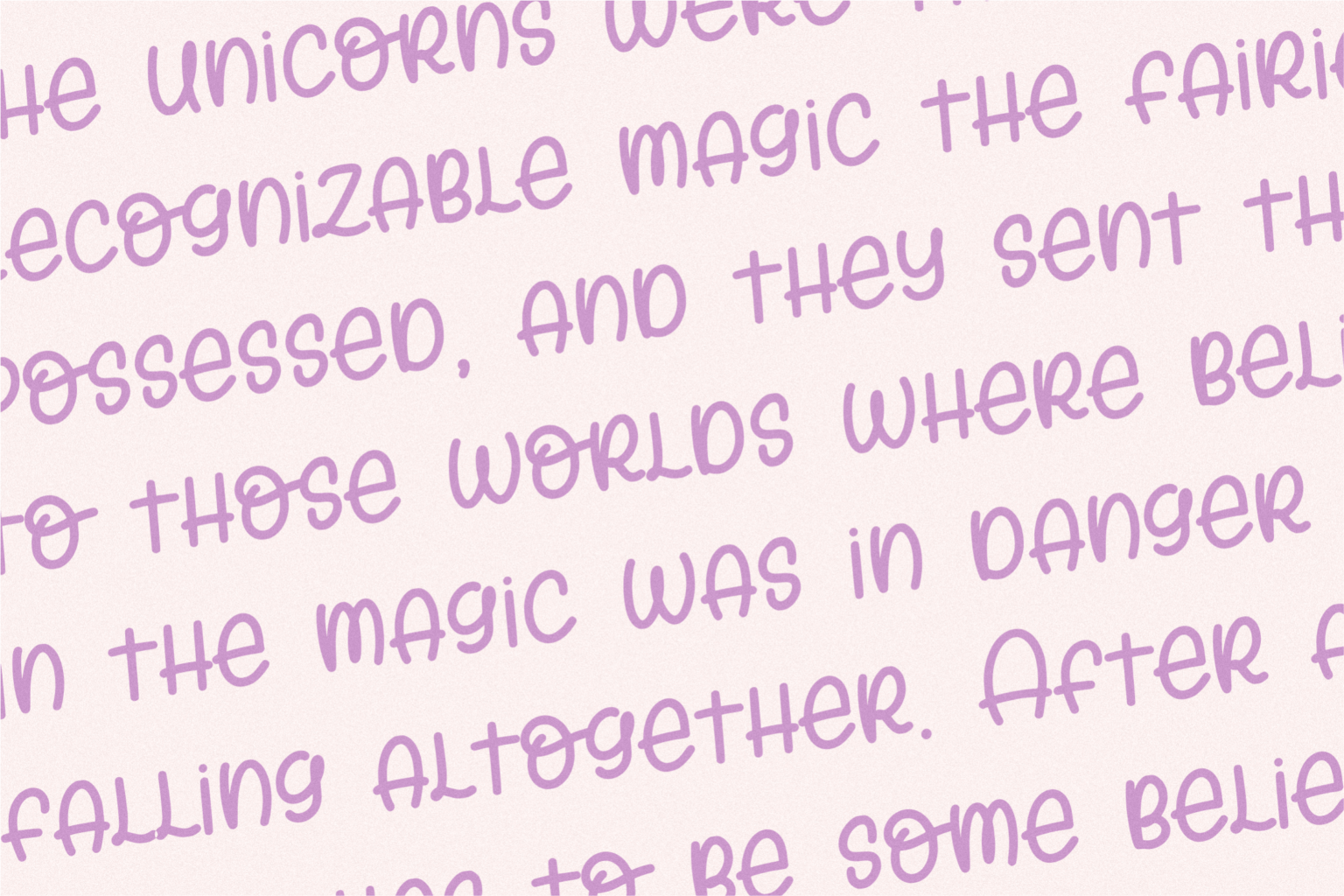
Sunday Unicorn Display Font
This is a cute and simple handwritten font. It is perfect for product packaging, branding project, magazine covers, social media, wedding, or just used to express words above the background.